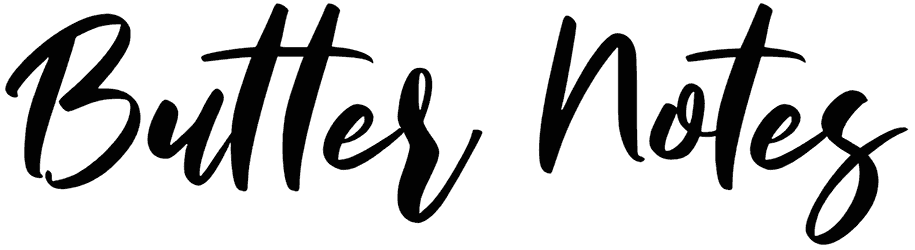
Butter Notes Font
Butter Notes is a handwritten font that is ideal for adding a personal touch. This marker font can be used in a wide range of projects, such as official invitations and daily notes.
In addition, if you want to use beautiful details for decorative purposes that will capture all eyes at once, we at RB recommend downloading Butter Notes. The rhythmic and natural connections of this font make it easier for the audience to read, and your content penetrates them faster.